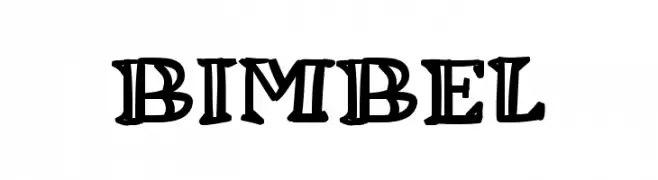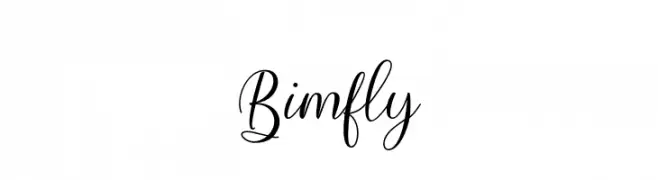
A bold, geometric font with Art Deco influences, ideal for decorative use.
An elegant script font with graceful, flowing strokes and sophisticated design.
A pixelated, retro-style font with a blocky, digital appearance.
A playful, handwritten font with a casual and friendly style.
A playful, hand-drawn font with bold, irregular letterforms.
A playful, bold font with split contrasting halves for a dynamic look.
A playful, bold font with a unique split design, perfect for creative projects.
A modern, geometric sans-serif font with a clean and minimalistic style.
A bold, modern sans-serif font with clean, geometric lines.
A bold, textured, hand-drawn font with a playful and casual style.
A decorative font with intricate geometric patterns and bold, enclosed characters.
A bold, expressive handwritten font with playful curves and thick strokes.
A playful, bold font with rounded strokes and a friendly appearance.
A display font made of superhero and comic book logos as glyphs.
A graceful and elegant cursive font with high contrast strokes.
An elegant script font with flowing, decorative swashes and loops.
Bold, brush-style script with a modern, handwritten look.
A bold, textured script font with a dynamic, handcrafted feel.
A decorative font with elegant swashes and calligraphic flourishes.
A graceful and flowing script font with a natural handwriting style.
A playful and elegant script font with flowing, interconnected characters.
A whimsical, spooky font with jagged edges and playful curls, ideal for Halloween themes.
A spooky, dripping font perfect for Halloween themes.
A decorative Halloween-themed font with playful and spooky illustrations.
A whimsical Halloween-themed design with playful illustrations.
A whimsical, Halloween-themed font featuring playful hand-drawn illustrations.
A bold, brush-style font with an energetic and artistic flair.
A spooky, dripping font perfect for Halloween themes.
A playful, handwritten font with a casual and friendly style.
A bold, brush-style font with dynamic, hand-painted strokes.
A decorative font with playful Halloween-themed icons.